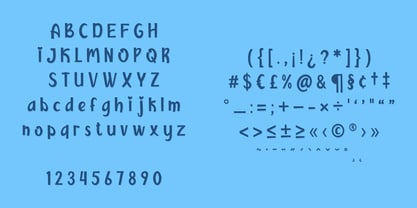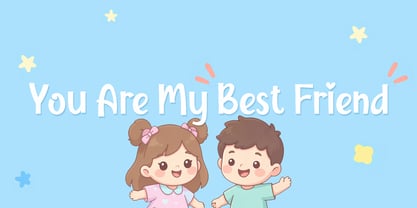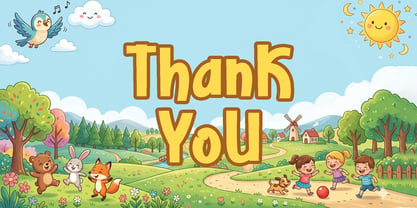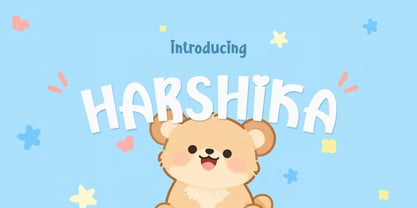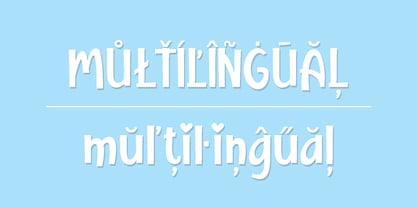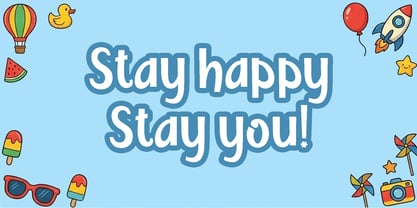
Harshika
par ZorkSlide
La famille de polices Harshika a été conçue par Zuhayr Zunayra et publiée par ZorkSlide. Harshika contient 2 styles et options de package familial. En savoir plus sur cette famille
Harshika is a playful quirky handwritten display font that brings a joyful and lively personality to every design. With its natural hand-drawn strokes, slightly irregular shapes, and charming character, Harshika delivers a fun, friendly, and expressive look that instantly grabs attention. Designed to feel spontaneous and full of life, this font is perfect for projects that need a touch of warmth and creativity. Whether you're working on kids-themed designs, social media content, branding, or cheerful quotes, Harshika adds a delightful and approachable vibe. Its unique letterforms and playful rhythm make it ideal for headlines, posters, packaging, and any creative work that calls for a bold and happy statement.